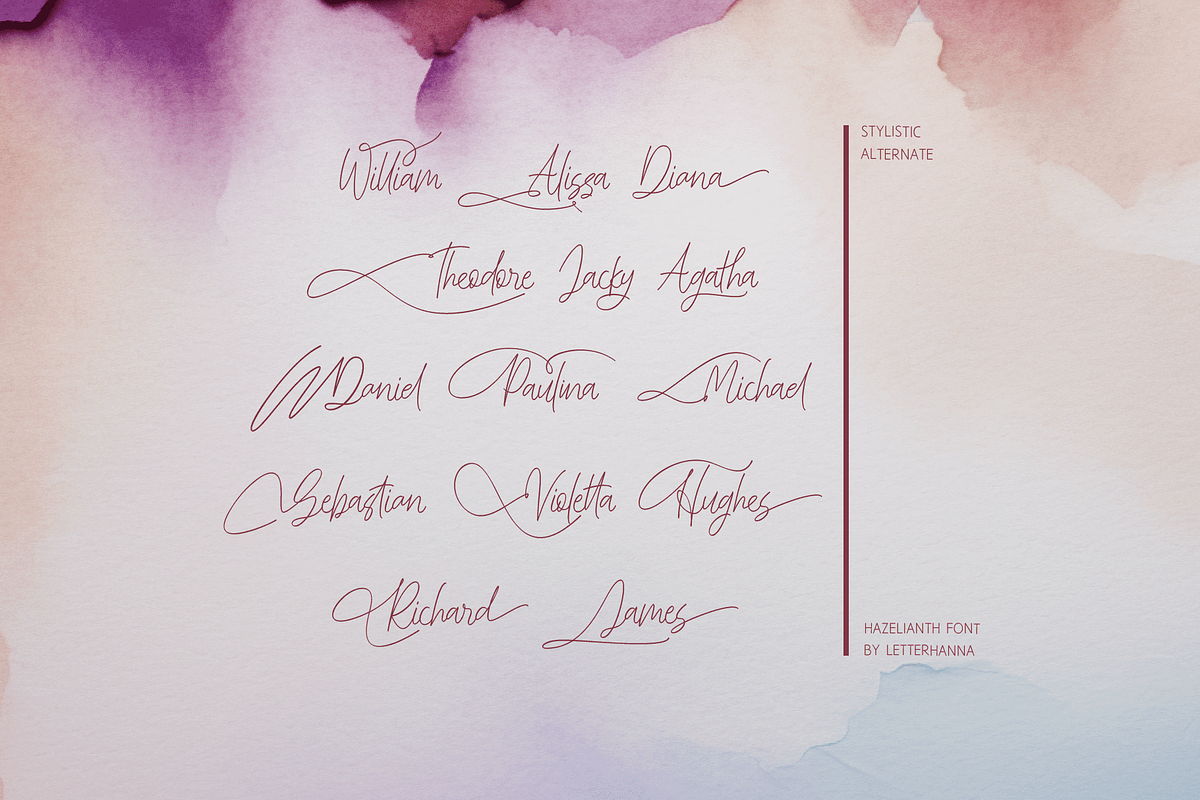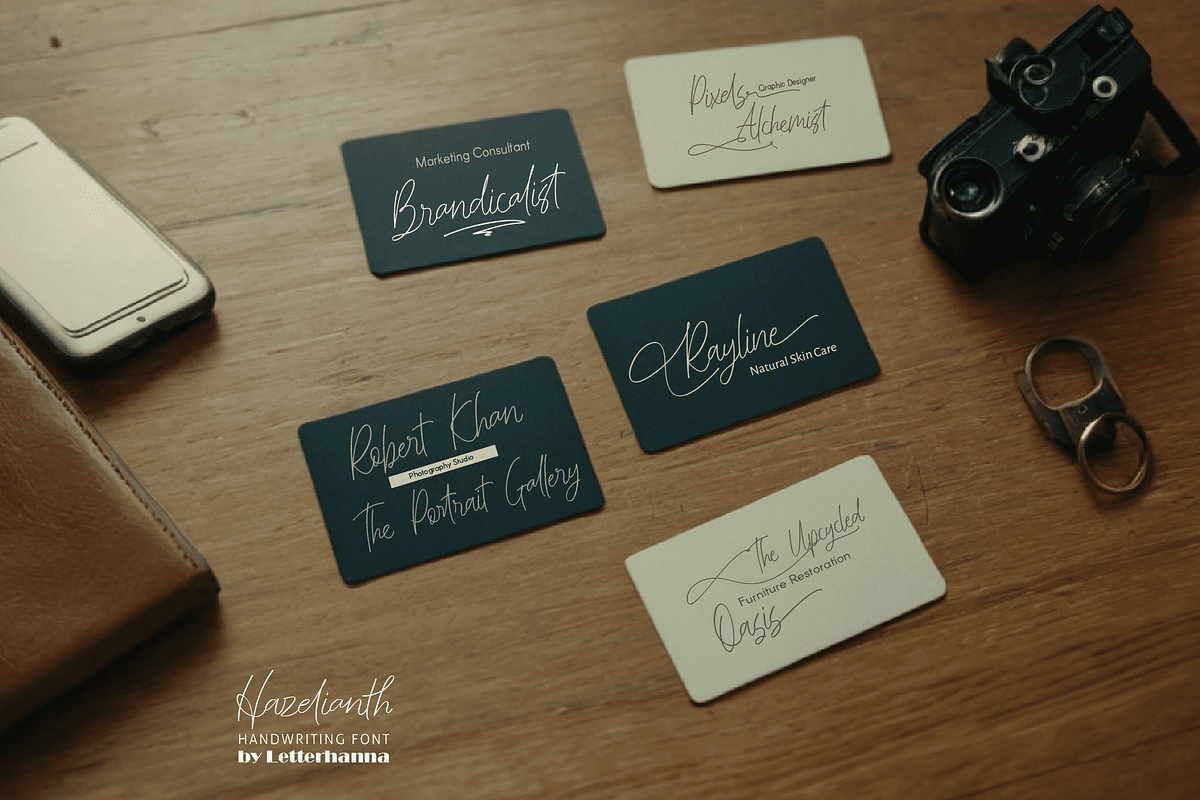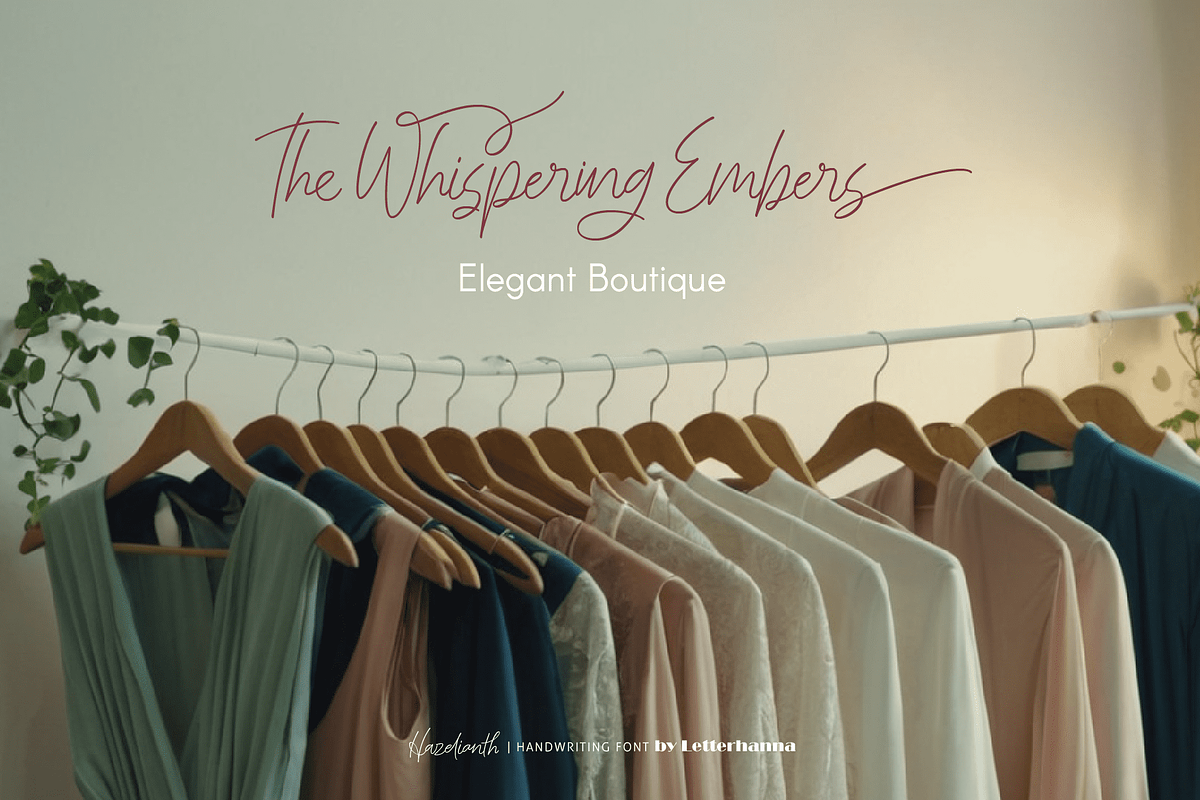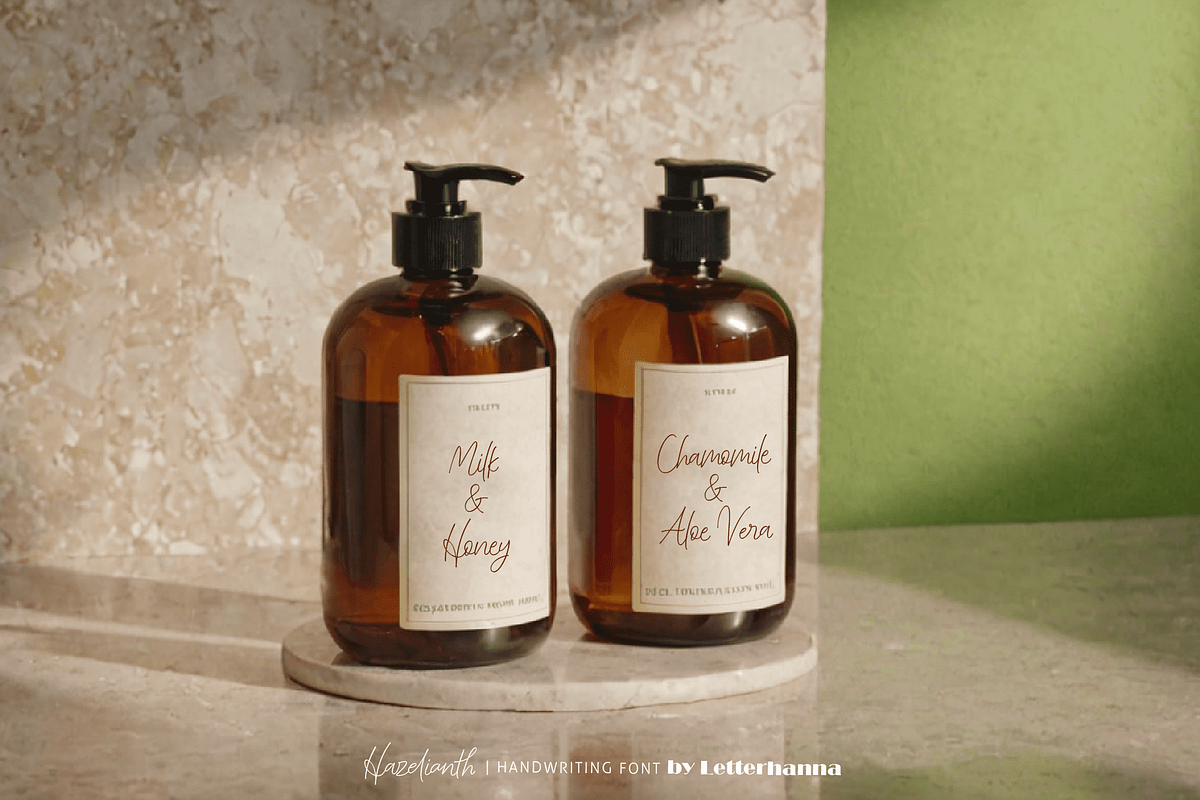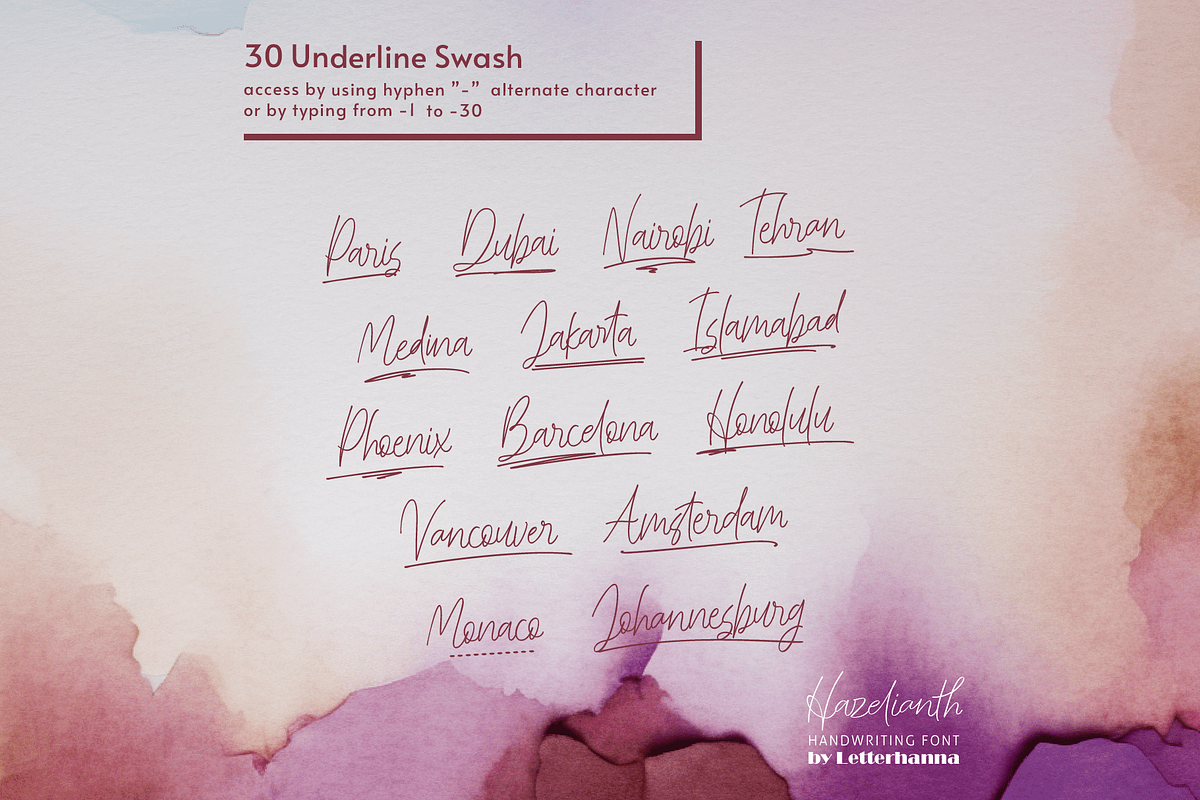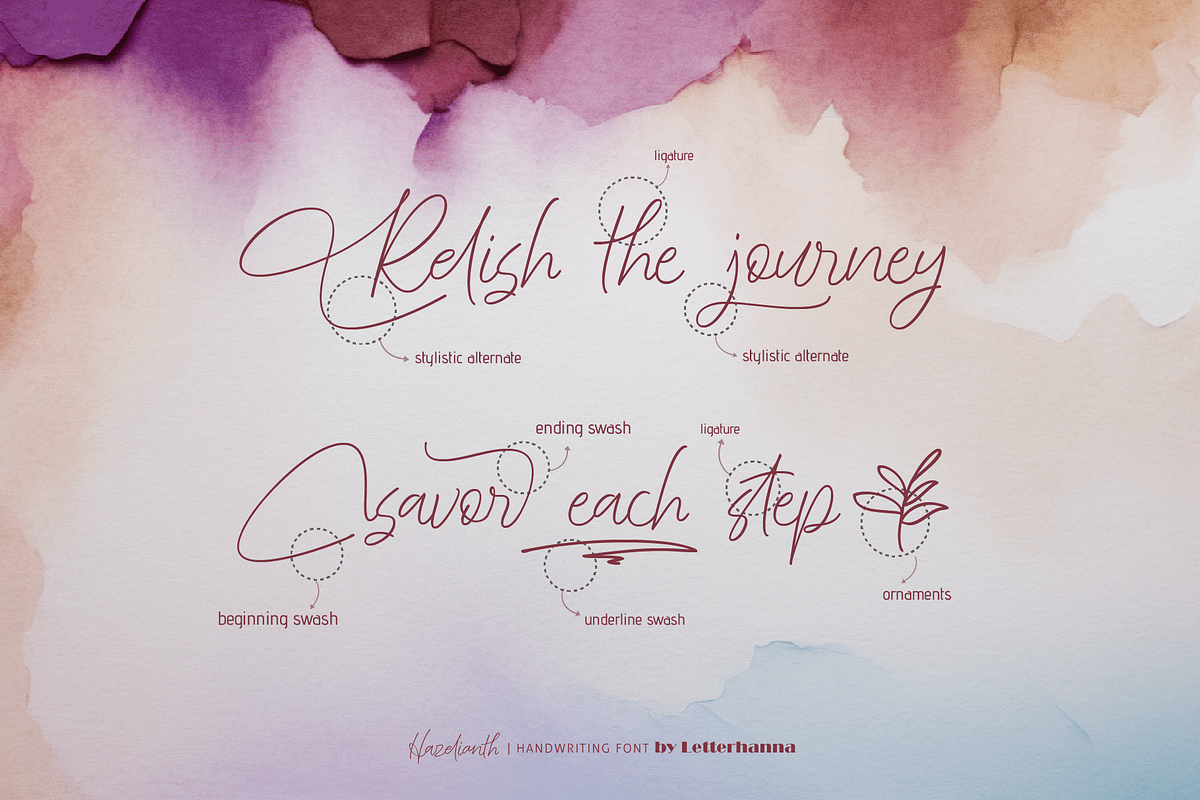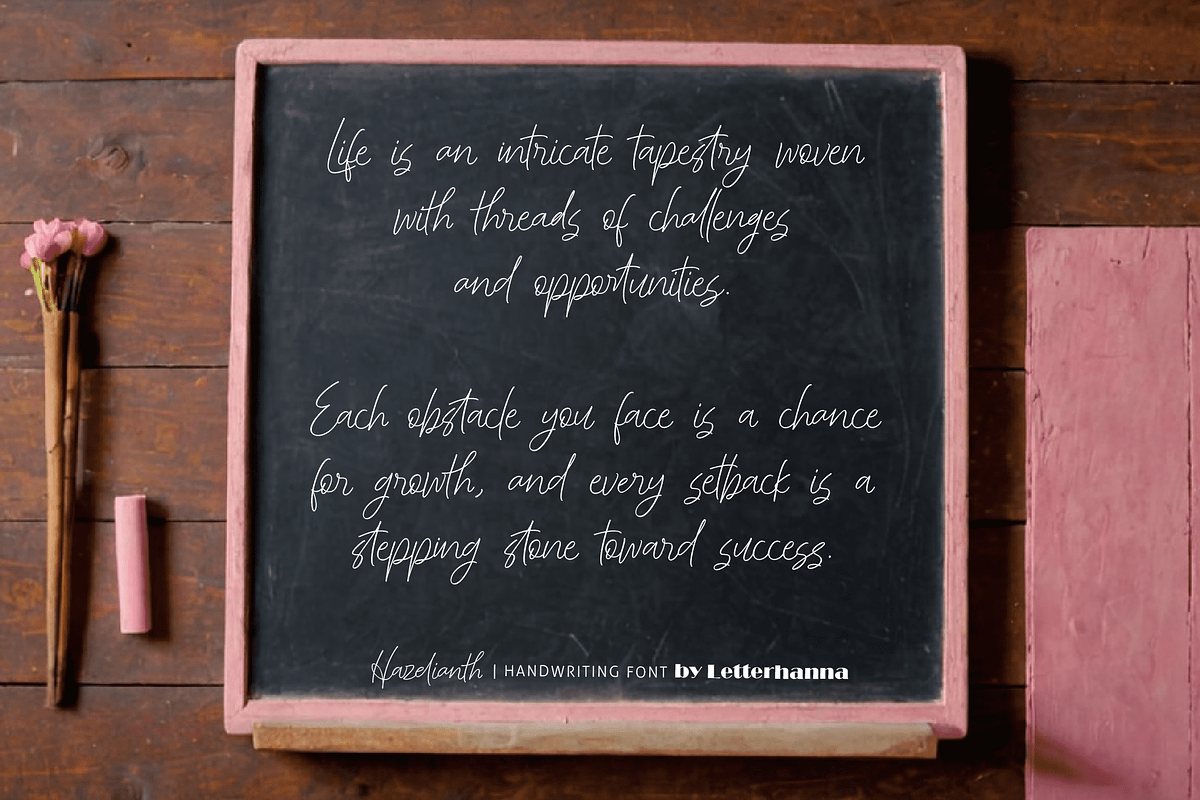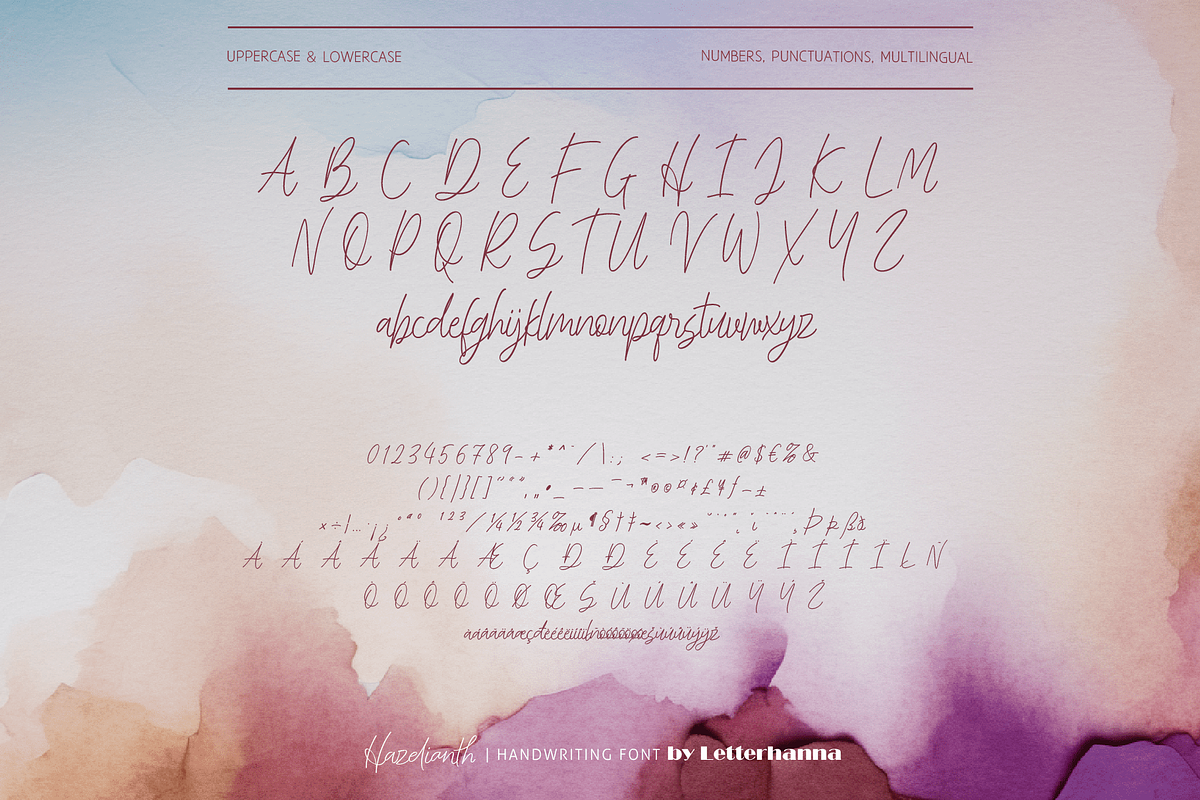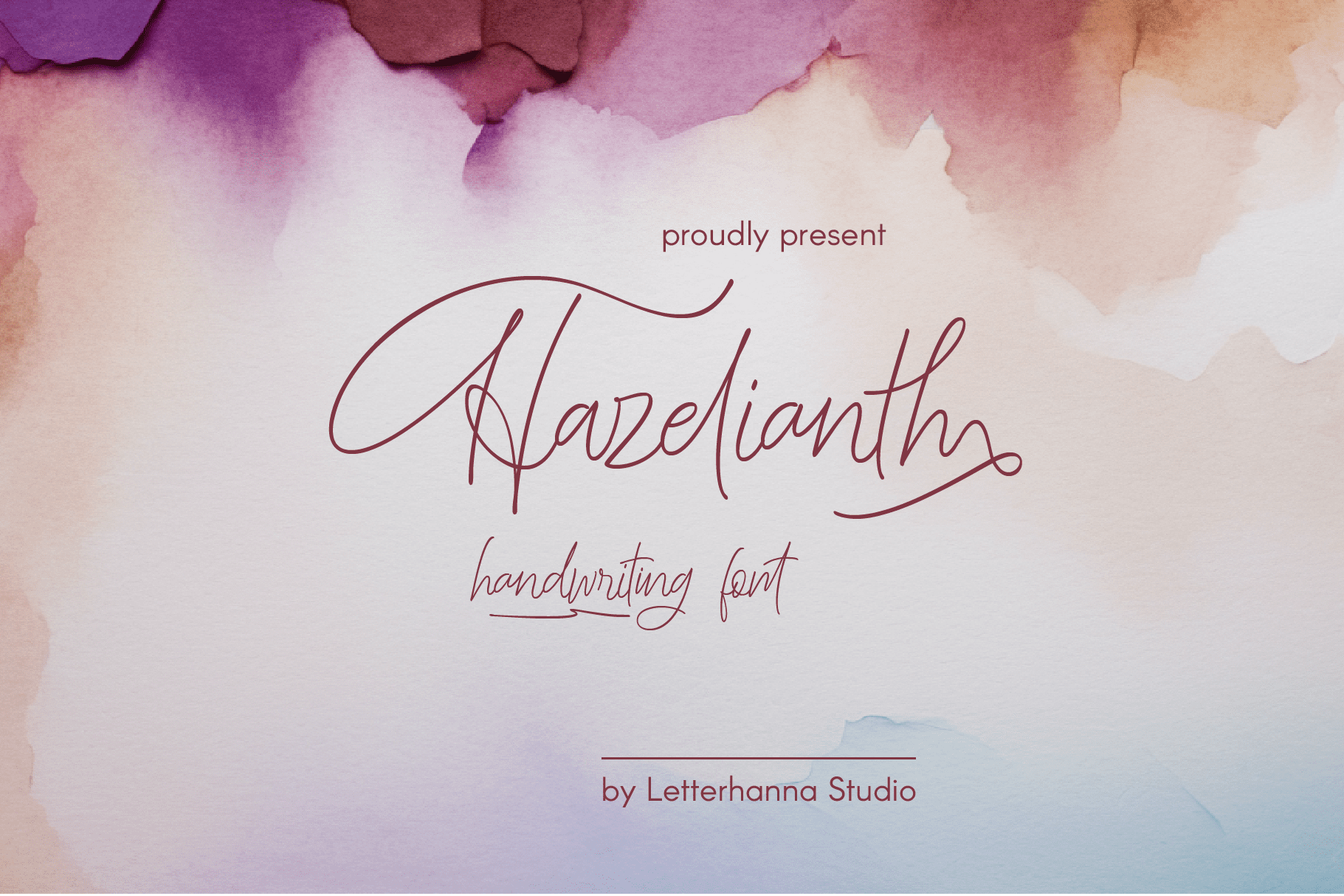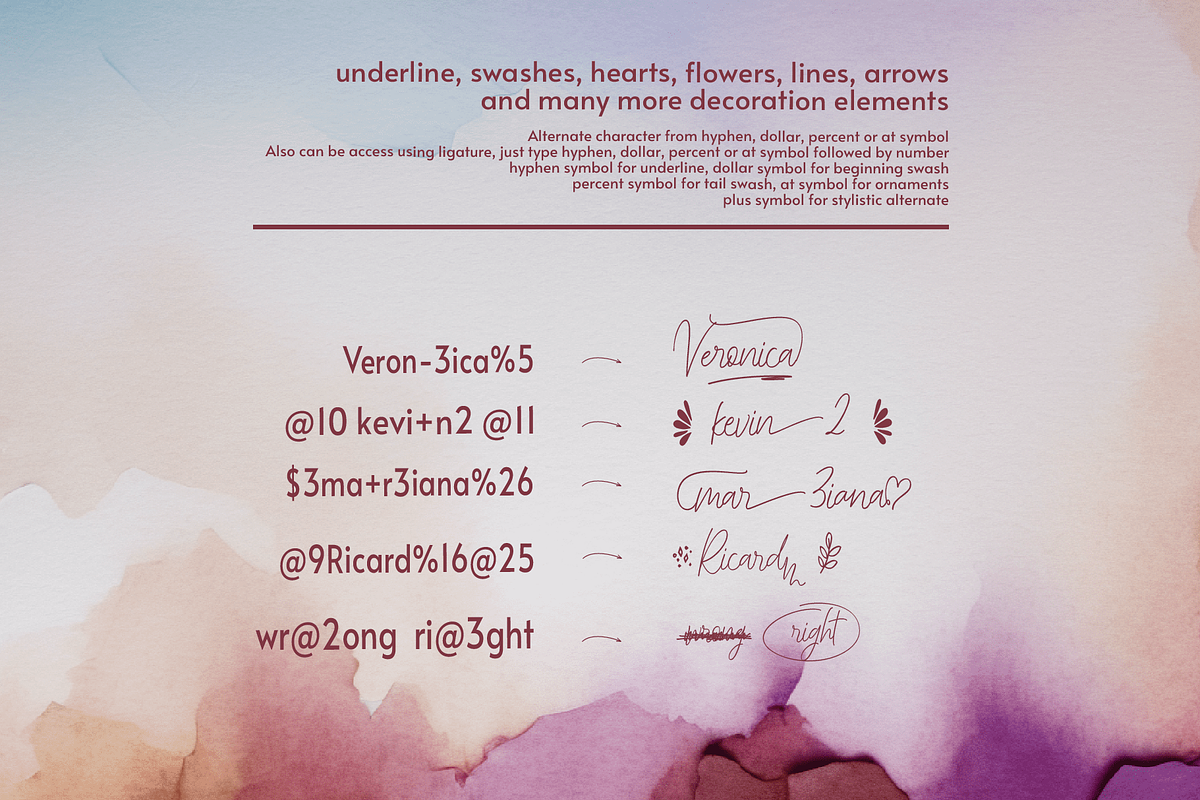
Hazelianth Font
Introducing Hazelianth, a captivating new handwritten script font that dances between elegance and warmth. Each letter flows effortlessly, imbued with a touch of delicate reminiscent of hazelnuts. Imagine the soft whispers of a love letter penned in this enchanting script, or the whimsical flourishes that bring a personal touch to invitations and announcements.
Hazelianth is perfect for breathing life into your creative projects, whispering tales of love, friendship, and heartfelt moments. Whether you're crafting a wedding invitation or personalizing a blog post, Hazelianth promises to leave a lasting impression with its unique blend of sophistication and charm.
Easy Access to Glyphs and Swashes
Gain easy access to all alternate glyphs, swashes, ornaments, and underlines by simply using ligatures. You can try them out yourself in the font preview tool on our website, letterhanna.com.
Accessing Stylistic Alternates
Stylistic alternates can be accessed by typing a plus symbol "+" in front of the original letter. For example, type "+a" to get the stylistic alternate of the letter a.
Accessing Swashes and Ornaments
Underline Swashes: Use a hyphen symbol "-" followed by a number between 1 and 30. For example, type "-3", "-22", or "-17" to get various underline swashes.
Head/Beginning Swashes: Use a dollar sign "$" followed by a number between 1 and 9. For example, type "$2" or "$8" to get different head/beginning swashes.
Tail/Ending Swashes: Use a percent sign "%" followed by a number between 1 and 30. For example, type "%3" or "%15" to get various tail/ending swashes.
Ornaments: Use an "at" symbol "@" followed by a number between 1 and 26. For example, type "@4" or "@13" to get different ornaments.
Uppercase and lowercase letters
Numbers and punctuation marks
Beginning and ending swashes
Underline swashes
Stylistic alternates
Ornaments
Easy access to swashes using ligatures